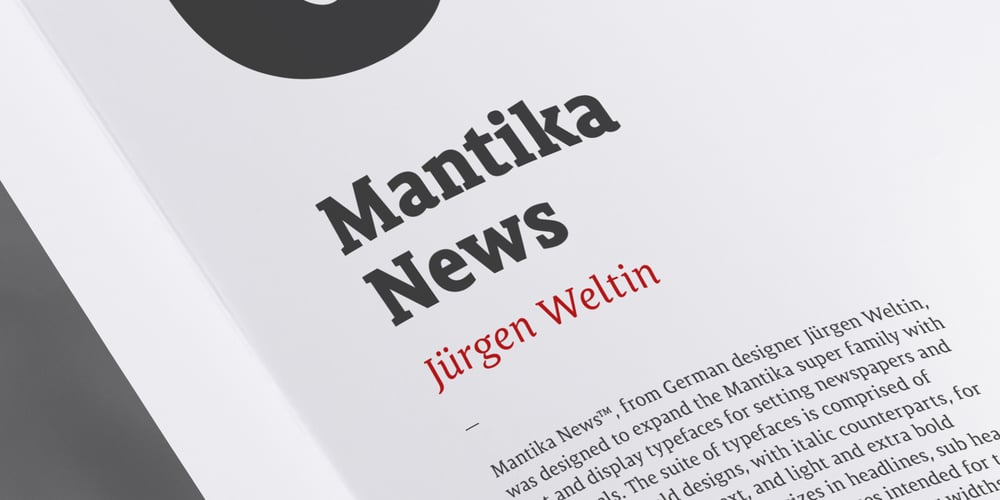
Mantika News
Mantika News font
Mantika News Font Family was designed by Jürgen Weltin and published by Linotype. Mantika News contains 6 styles and family package options. Mantika News™, from German designer Jürgen Weltin, was designed to expand the Mantika super family with text and display typefaces for setting newspapers and periodicals. The suite of typefaces is comprised of regular and bold designs, with italic counterparts, for setting continuous text, and light and extra bold versions for setting larger sizes in headlines, sub heads, pull quotes and decks. The typefaces intended for text copy were designed with shared character widths, so that changes can be made in typeface choice without disrupting line endings or column length. The display designs have a slightly smaller x-height and shorter ascenders creating a more elegant demeanor while ensuring compact multi-line display copy. In addition, fonts of Mantika News have a large Monotype W1G (World Glyph Set 1) character set enabling the setting of Greek, Cyrillic and over 20 Eastern and Western European Latin-based languages. Proportional figures are available, in the OpenType® fonts, as an alternative to the tabular designs.